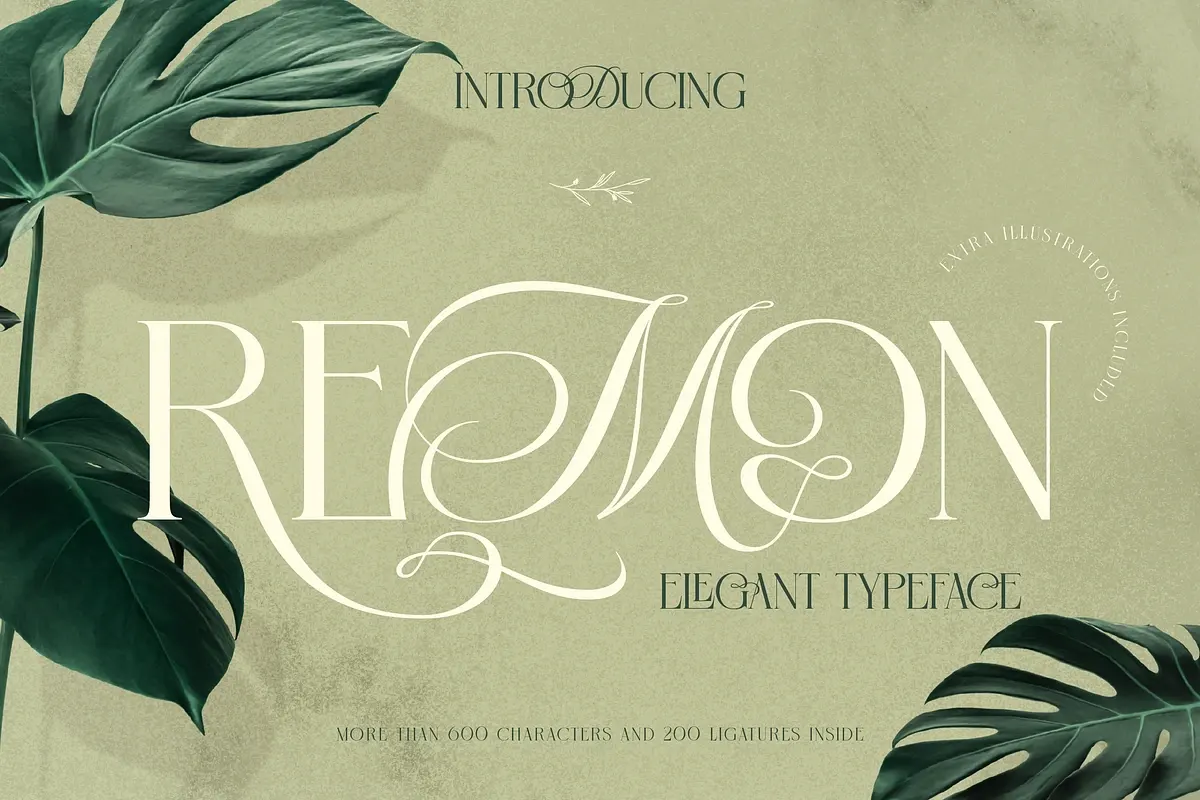
Remon Font Free Download is a luxurious blend of classic calligraphy and modern serif styles, offering an elegant and sophisticated touch to your design projects. This font is perfect for branding, wedding invitations, logos, and high-end packaging, where a refined aesthetic is desired. Its graceful curves and well-balanced letterforms provide a timeless charm, enhancing the visual appeal of your creations.